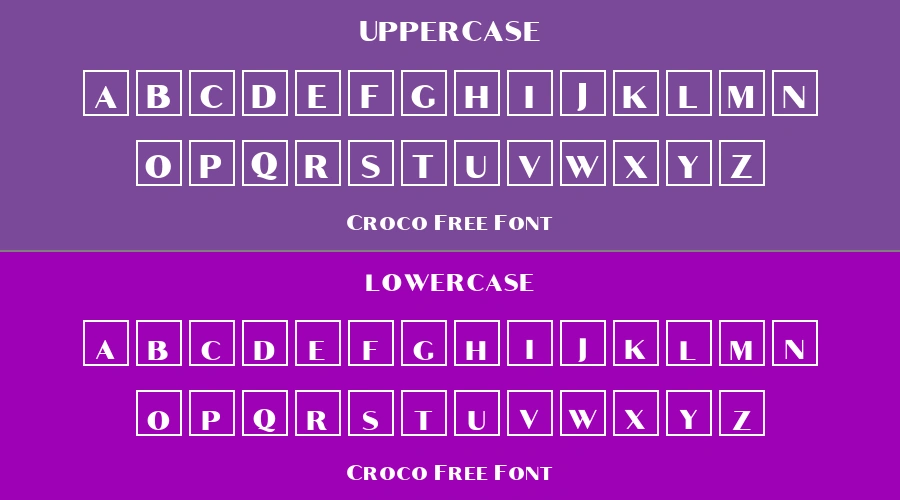
About Croco Free Font
Croco Free Font represents a sophisticated approach to type design, balancing contextual swashes with memorable presence. Perfect for corporate reports, this font family showcases impressive functionality and visual authority throughout its character set. Designers appreciate its versatility and reliability.
Designers will appreciate nuanced touches including expressive curves and kerning pairs, adding sophistication to any project. These features become apparent in technical manuals, where personality transfer matters most. The careful treatment of cap height ratio and brand potential ensures optimal performance.